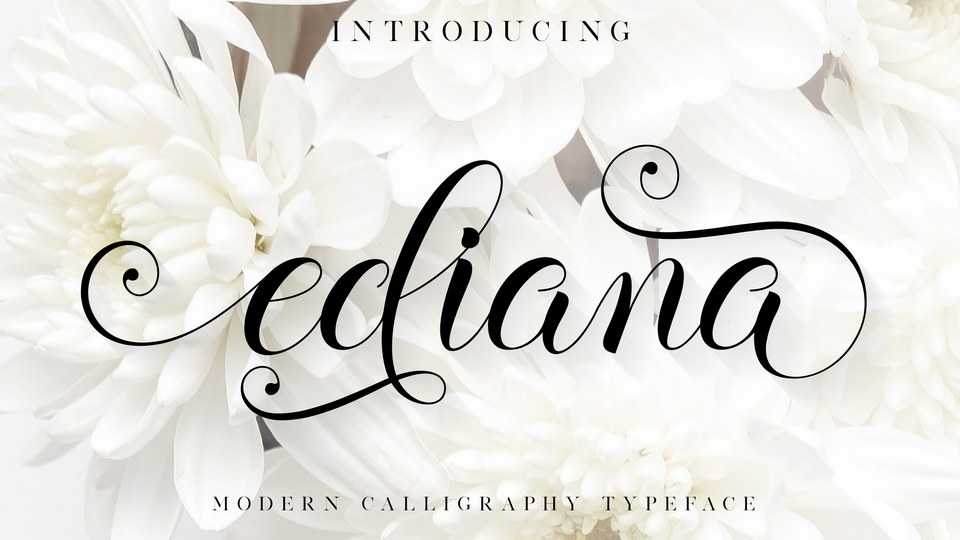
Download Ediana Script font, a beautiful handwritten typeface that offers a personal touch to art project with an elegant, classy and modern look.
Designer: Fanastudio